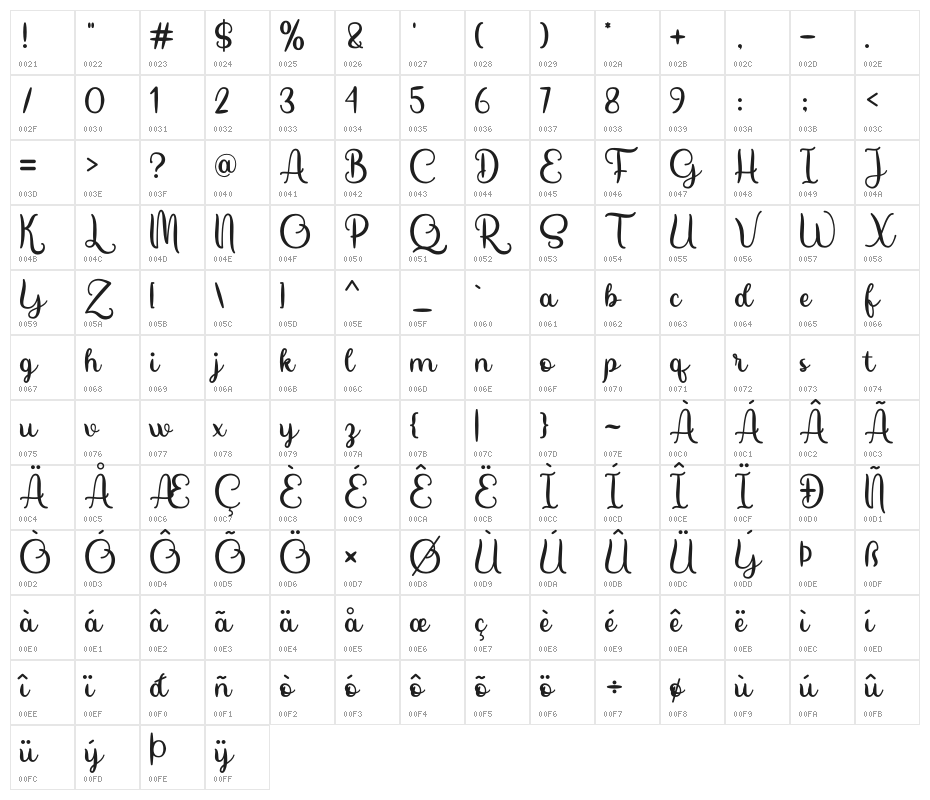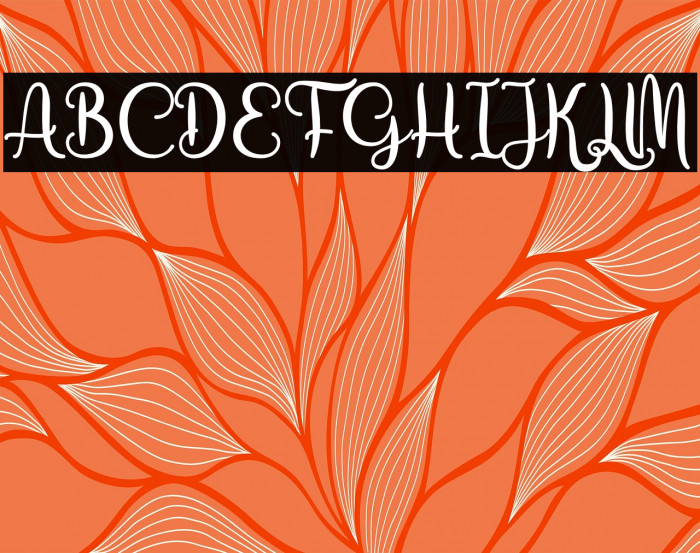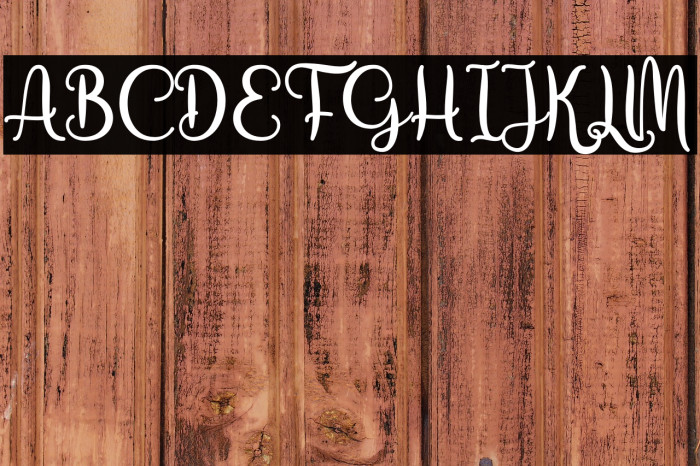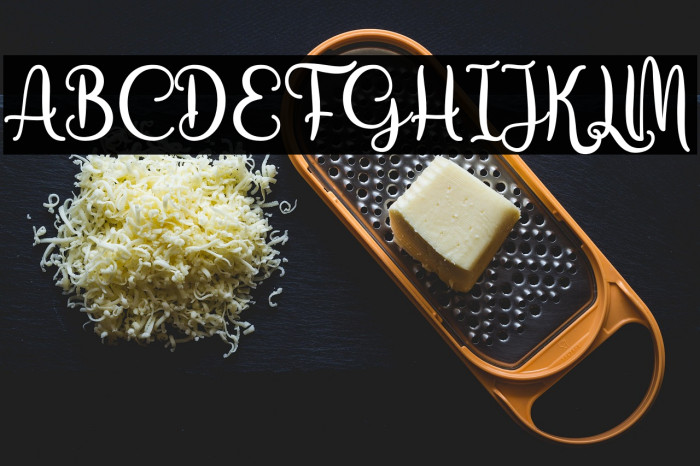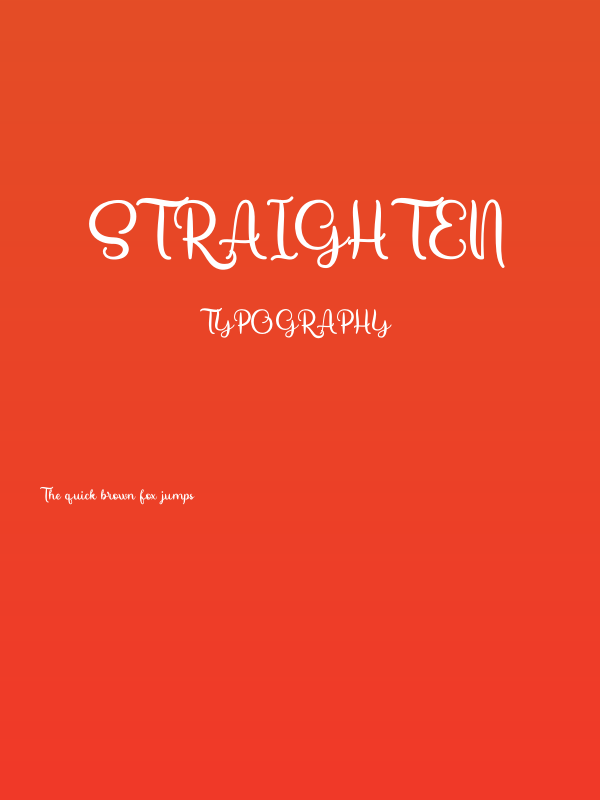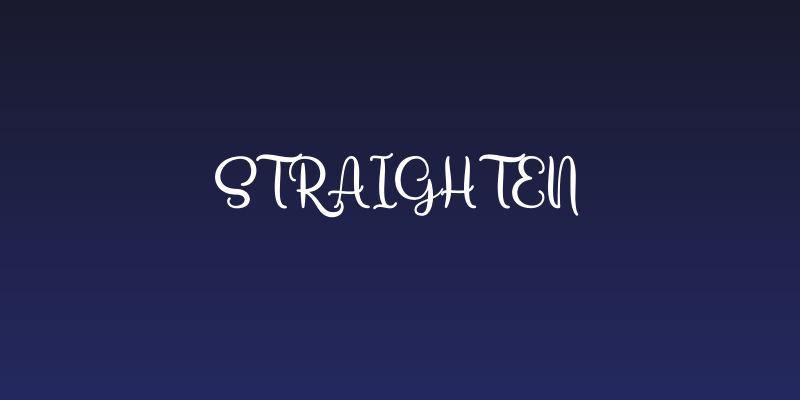
Straighten Font
Straighten Description
This font features a playful and flowing script style, characterized by its smooth, rounded curves and consistent stroke width. The uppercase letters are elegantly looped, while the lowercase letters maintain a cohesive and connected appearance, enhancing readability. The numerals are bold and clear, matching the overall aesthetic of the alphabet. Special characters are integrated seamlessly, maintaining the font's whimsical and friendly tone. This font is ideal for projects that require a personal touch, such as invitations, greeting cards, or branding materials that aim to convey warmth and approachability.
Use CaseHeadlines, Logos, Invitations
Proposed ProjectsIdeal for invitations, greeting cards, branding, and personal projects.